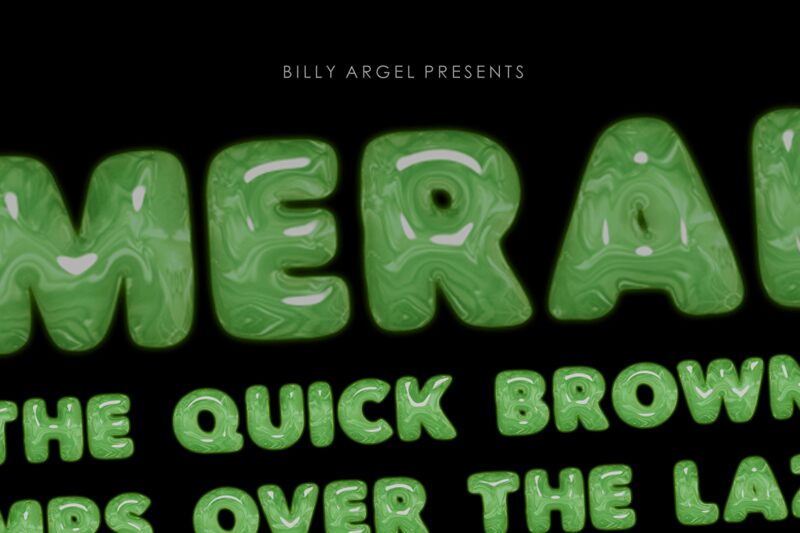
EMERALDHILLPERSONALUSE-BdIt
Emerald Hill BdIt font, designed by Billy Argel Fonts, is a free bold decorative display typeface with vintage-inspired elements. It is distinguished for its textured and distressed look of its letters which adds an organic feel to text. Various patterns decorate individual characters which makes the font atmospheric and highly engaging.
Use Emerald Hill BdIt in posters, T-shirts, packaging designs, invitations cards, social media posts (with text), advertisements, description labels or even magazines. Commercial-related use is allowed for this well-designed font so you can integrate it into any project!
It includes two versions: bold and bold italic.